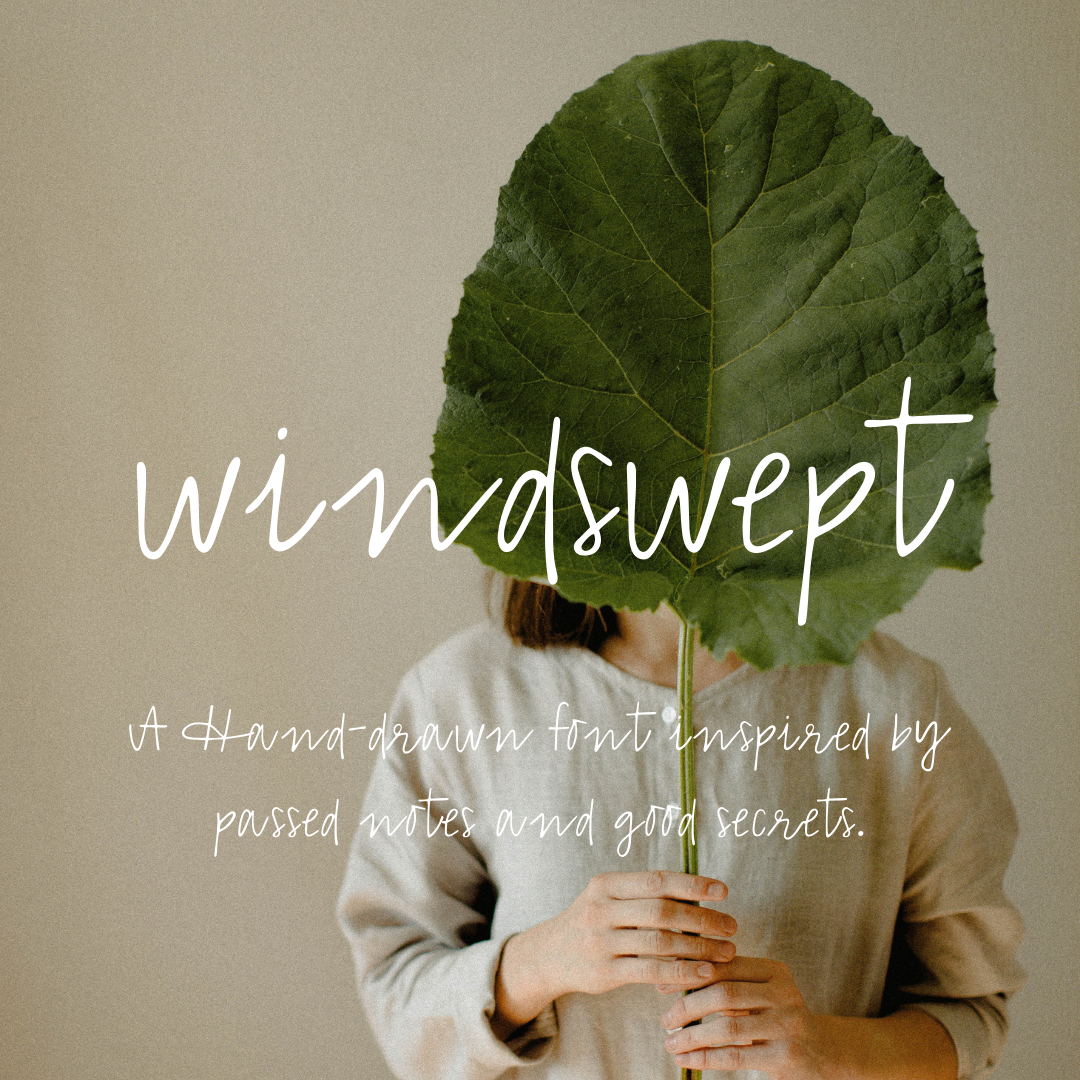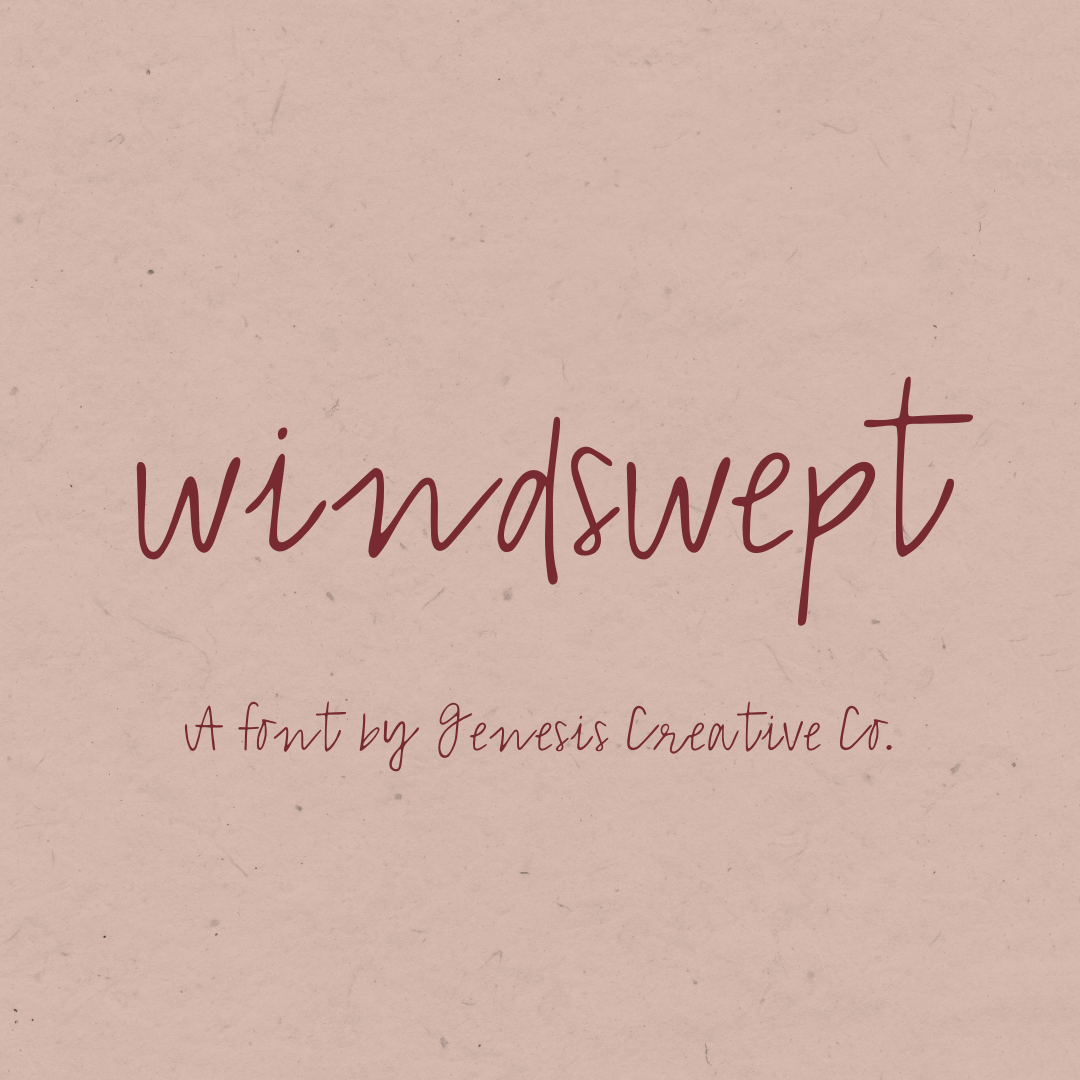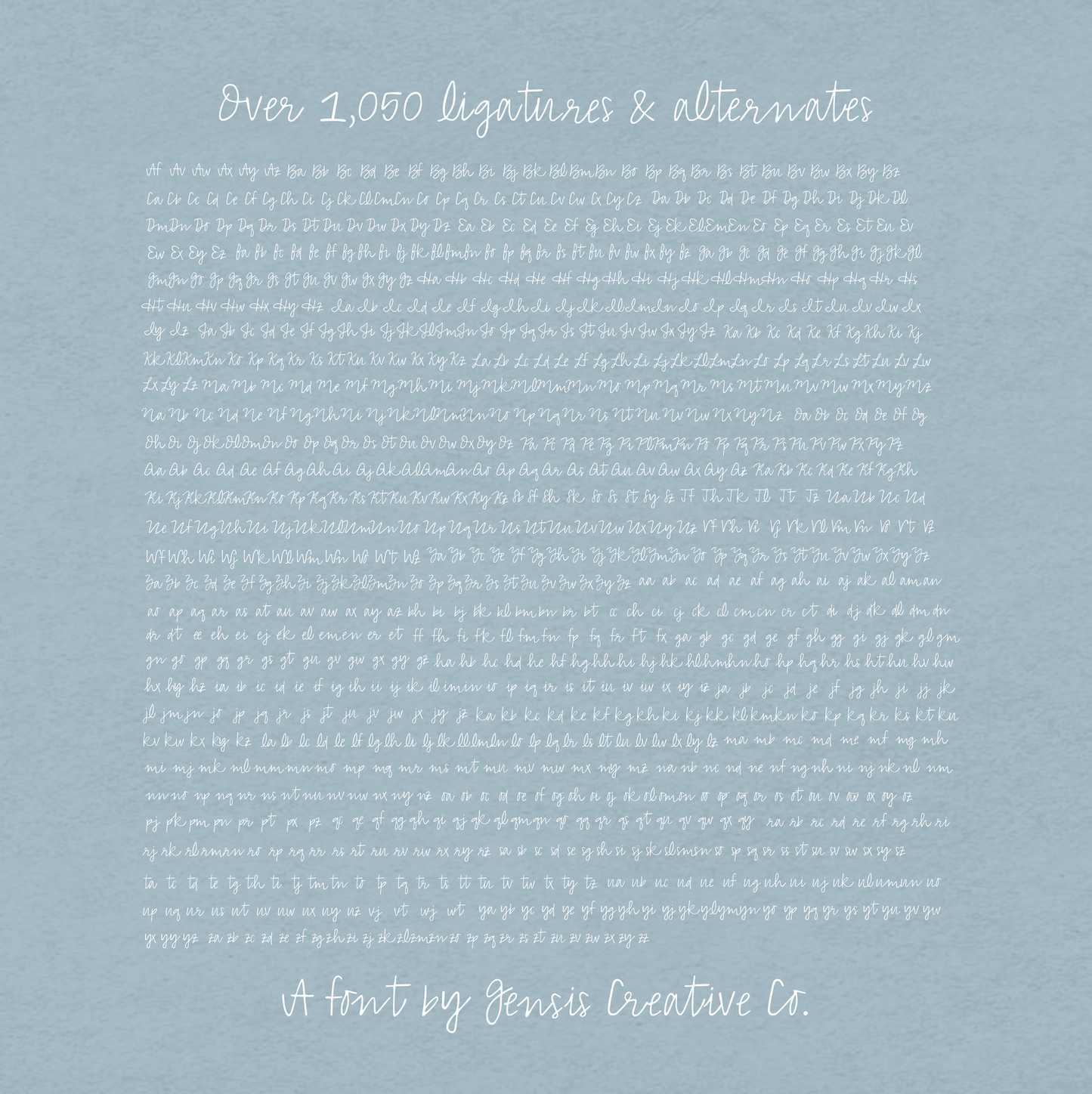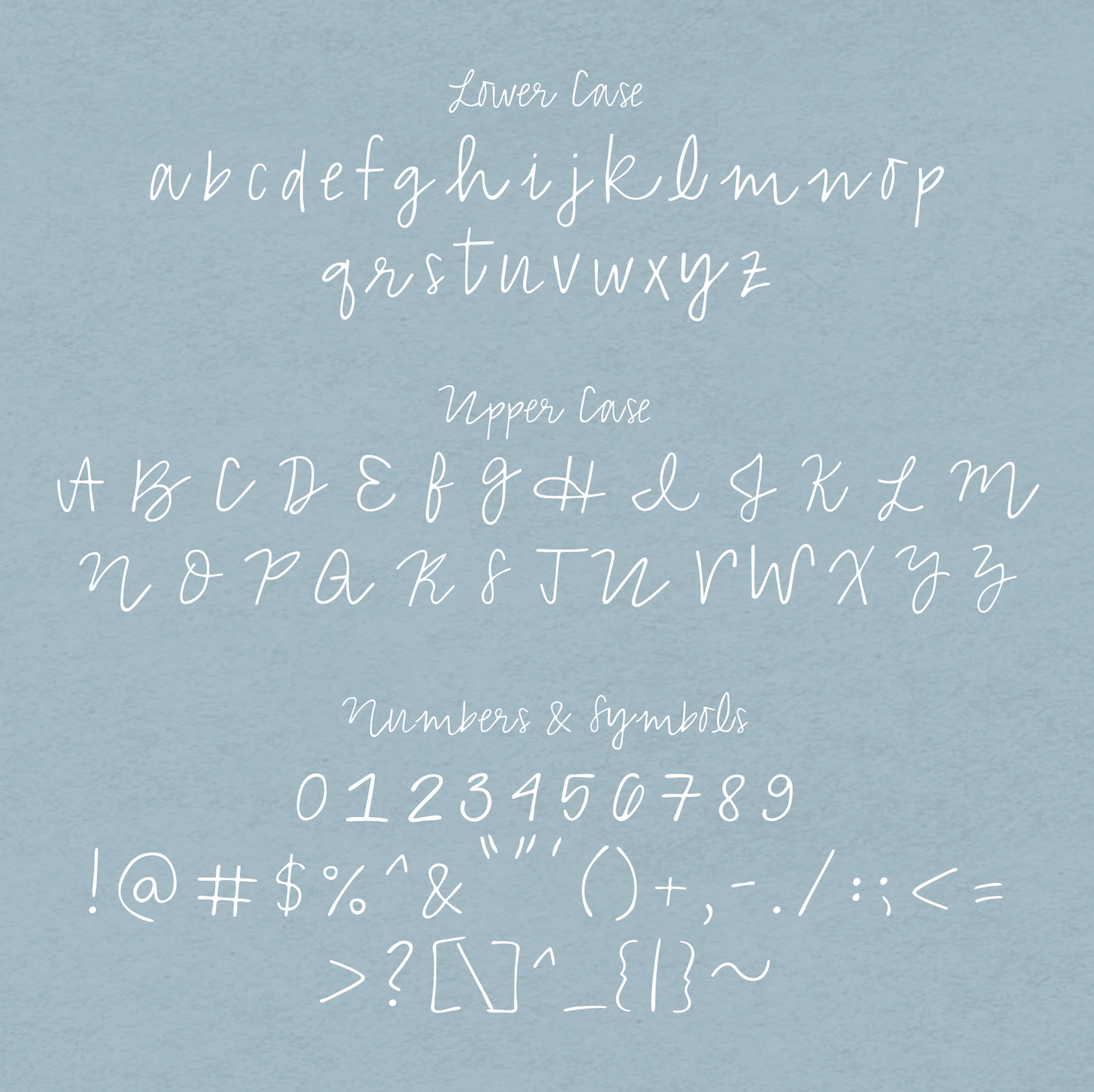
Windswept Font
Windswept is a bespoke, hand-drawn font. Created to look like the effortless handwriting you might find in a love letter, windswept features capital and lowercase letters. Windswept is perfect for headings or subtitles!